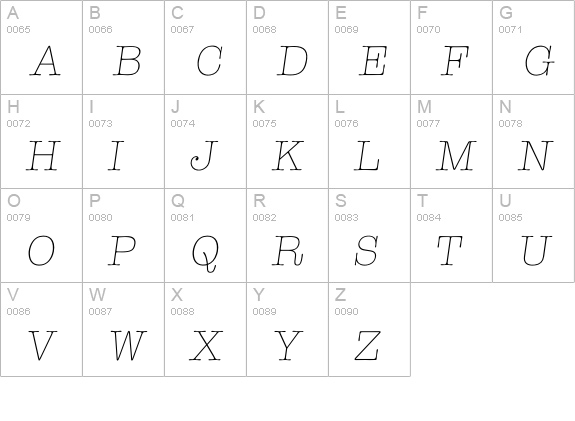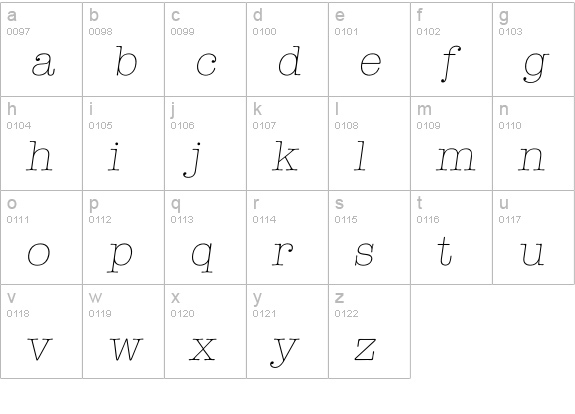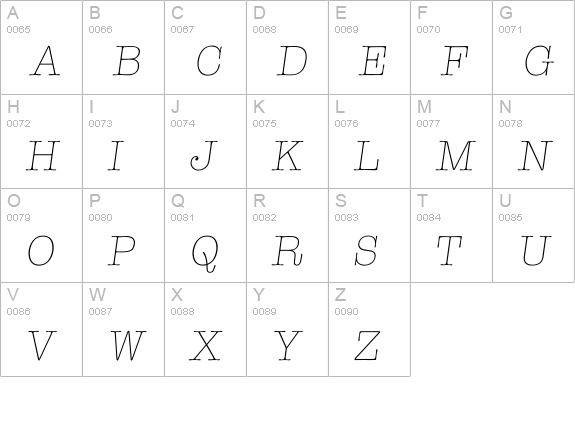
Introducing the captivating and versatile Itypewriter Xlight font, a stunning addition to the world of typography. This font is a perfect blend of modernity and elegance, making it an ideal choice for various design projects. The Itypewriter Xlight font features a refined and sophisticated appearance, with its slim and delicate letterforms. Each character is carefully crafted to exude a sense of grace and beauty, allowing for a harmonious flow of text that captures the reader's attention. With its wide range of glyphs and characters, the Itypewriter Xlight font offers endless possibilities for creativity. Whether you're designing a brand logo, creating eye-catching headlines, or crafting a visually appealing poster, this font will effortlessly elevate your project to new heights. One of the most remarkable aspects of the Itypewriter Xlight font is that it is available for free. Yes, that's right! This extraordinary font can be freely downloaded at FontsMarket.com, making it accessible to designers and enthusiasts alike. Now, you can enjoy the exceptional quality and style of this font without any cost. Not only does the Itypewriter Xlight font offer aesthetic appeal, but it also ensures legibility and readability. Its clean lines and well-defined letterforms make it easy to read even at small sizes, ensuring that your message is effectively conveyed to your audience. So, why wait? Embrace the beauty and versatility of the Itypewriter Xlight font today. Download it for free at FontsMarket.com and unlock a world of endless design possibilities. Whether you're a professional designer or a typography enthusiast, this font will undoubtedly become a valuable asset in your creative arsenal.